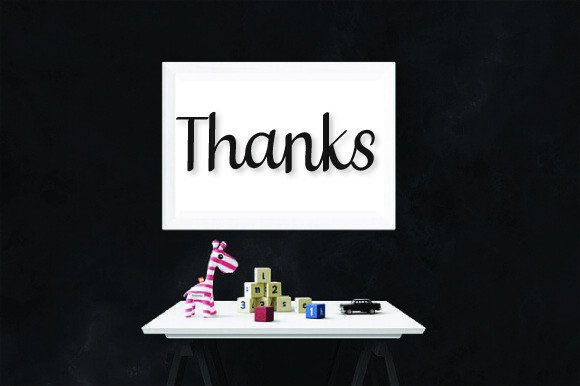
Introduction to Lettered Font
Have you ever stared at a blank sheet of paper, pen in hand, and felt the pressure of creating something truly unique? For designers, this moment is a familiar and exciting challenge. It’s in these moments that we’re reminded of the importance of having the right design resources at our fingertips. That’s where the Lettered Font comes in – a delicate handwritten font that’s perfect for adding a touch of elegance to your next creative project.
With its high-quality design and versatility, the Lettered Font is a valuable asset for any designer looking to add some visual interest to their work. Whether you’re crafting a beautiful invitation, designing a food product label, or simply want to add a touch of personality to a title, this font is sure to impress. And the best part? It’s available for free download, making it an accessible design resource for creatives of all levels.
- Unique, hand-drawn style with intricate details and ornate designs
- Perfect for use in various design applications, from logos to typography
Honest Review: Lettered Font
I recently stumbled upon the Lettered Font, a popular design resource that has been making waves in the creative community. As a designer, I was excited to put it to the test and see if it lived up to the hype.
What works well: ✨ The Lettered Font is incredibly versatile and can be used for a wide range of creative projects, from graphic design to web development. The font is highly customizable, allowing users to easily adjust the size, color, and style to fit their needs. I also appreciate the fact that it comes with a transparent background, making it easy to integrate into any design.
What doesn’t work well: ⚠️ While the Lettered Font is a high-quality resource, I do have a few minor complaints. The font can be quite heavy, which may not be suitable for all design projects. Additionally, the free download is limited to a specific size, which may not be enough for large-scale designs.
Overall, I’m impressed with the Lettered Font and would highly recommend it to fellow designers. With its high-quality design and versatility, it’s a valuable resource for any creative project.
Lettered Font: A Valuable Design Resource
For Adobe Photoshop and Illustrator, you can import the Lettered Font into your document and use it as a font style. You can also use the font to create custom shapes and designs. The Lettered Font is a great resource for designers who want to add a touch of elegance to their creative projects.
The Lettered Font is ideal for a variety of creative projects, including:
- Artistic designs and illustrations